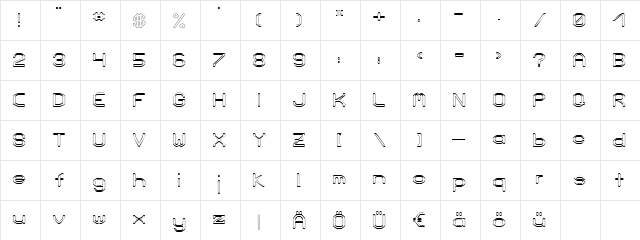
Love Parade outline Bold
Design Context for Love Parade outline Typeface
Love Parade outline brings ornamental detail and strong personality to headlines and identities, where visual impact matters more than quiet functionality. The heavy weight commands attention and anchors typographic hierarchies.
Font Pairing: Pair with a clean neutral sans-serif for body copy to let Love Parade outline's character lead without overwhelming the composition.
Pro Tip: Treat Love Parade outline as the centrepiece of your typographic hierarchy. One strong heading set in a decorative face can carry an entire layout.